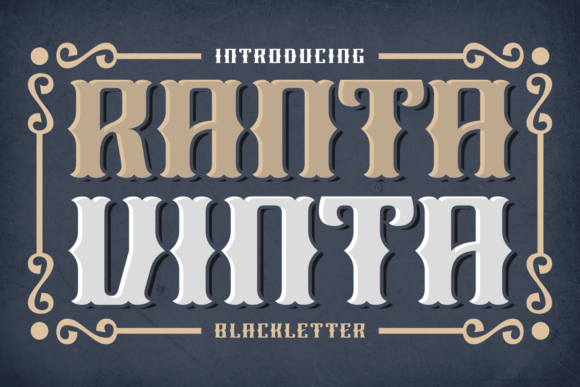
Introducing Ranta Vinta Font, the ultimate font for retro design enthusiasts! This blackletter font from Creative Fabrica Fonts is here to revolutionize your typography game. With its distinct thick and chunky appearance, Ranta Vinta will effortlessly make your designs stand out from the crowd.
Are you tired of the same old boring fonts? Say goodbye to mediocrity and embrace the captivating power of Ranta Vinta. Its unique style will inject a sense of nostalgia and vintage charm into your creations, instantly transporting your audience to a bygone era.
Whether you're designing headers, headlines, titles, book covers, advertisements, or branding projects, Ranta Vinta is the perfect partner. Its bold and eye-catching nature will command attention and leave a lasting impression on anyone who lays eyes on your work.
But that's not all! Ranta Vinta goes above and beyond by offering versatility and accessibility. With PUA encoding, you can effortlessly access all the glyphs and unleash your creativity without any limitations. Explore a wide range of decorative elements, ligatures, and alternate characters to add that extra touch of uniqueness to your designs.
Imagine the possibilities! Create stunning t-shirt designs that capture the essence of retro aesthetics. Craft captivating signage that effortlessly grabs the attention of passersby. Design book covers that transport readers to a different time and place. With Ranta Vinta, the sky's the limit.
But don't just take our word for it. Join the ranks of satisfied designers who have already experienced the magic of Ranta Vinta. Let your imagination run wild and bring your creative visions to life with this remarkable font that oozes personality and character.
So, what are you waiting for? Take your design game to the next level with Ranta Vinta Font. Unleash your creativity, captivate your audience, and make a lasting impact with this extraordinary font designed specifically for retro enthusiasts like you.